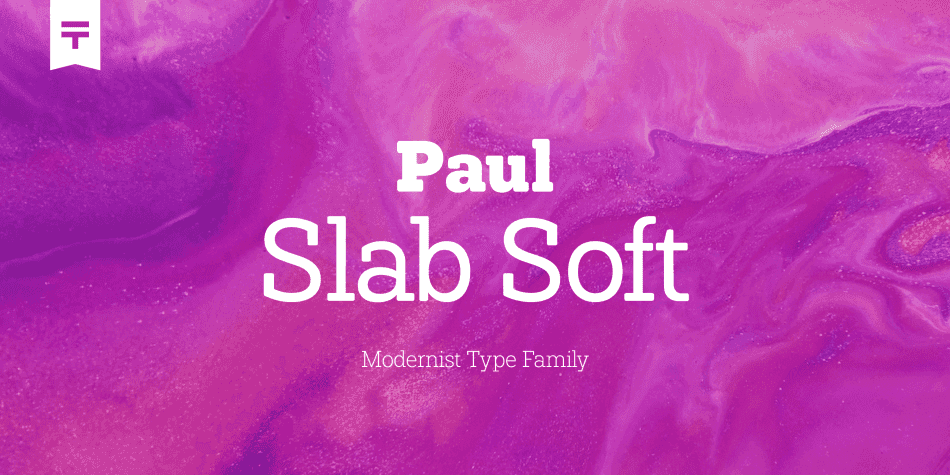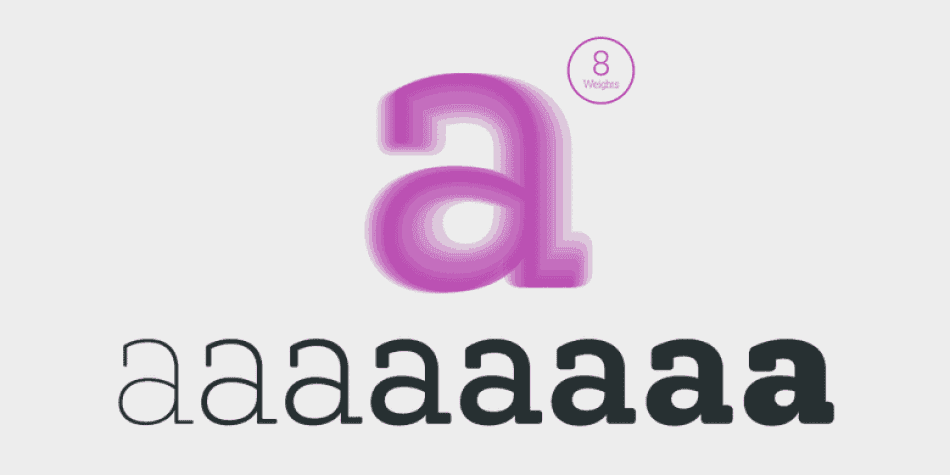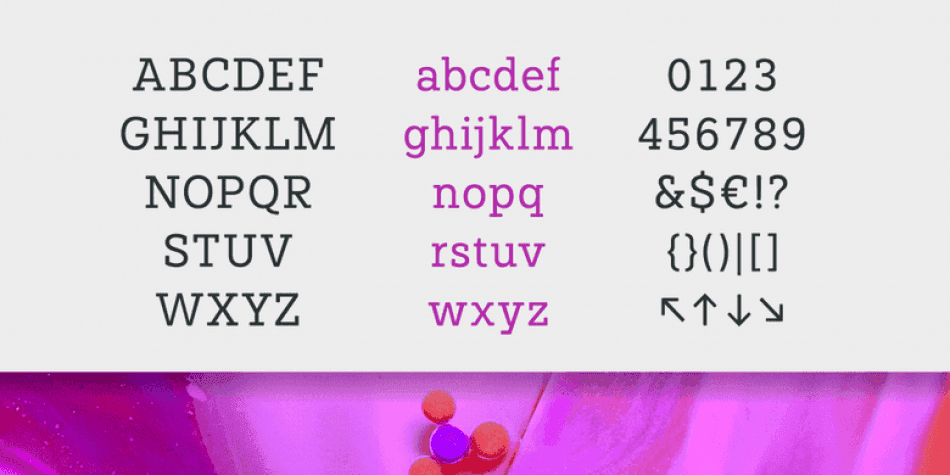
Paul Slab Soft Font was designed by Lukas Bischoff and Fargus Meiser and published by artill. This font contains eight styles for family packages and offers 8 font styles as part of its lineup.